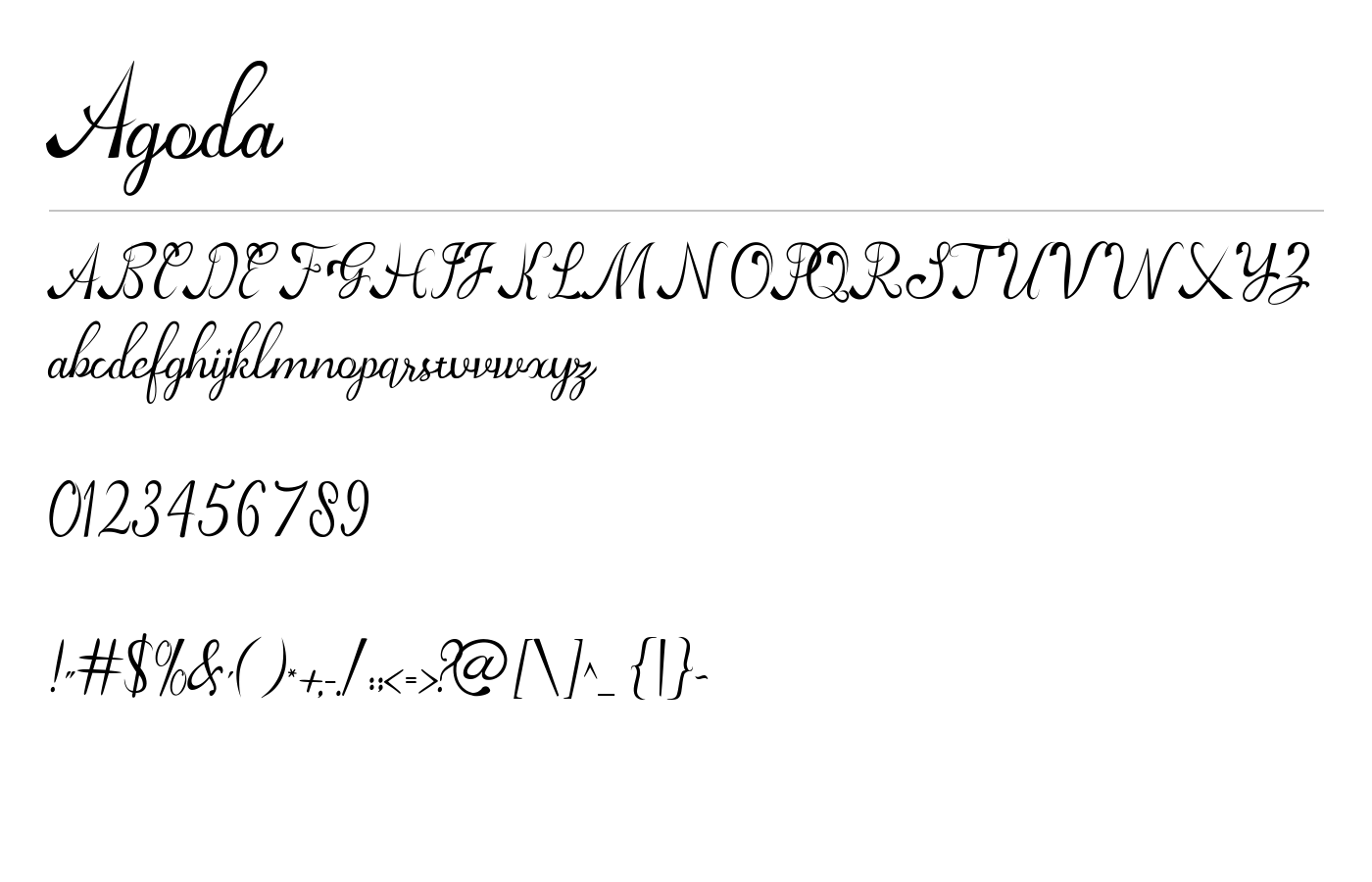
Agoda Font is an elegant and flowing script typeface characterized by its delicate and decorative letterforms that evoke a sense of sophistication and charm. Its thin, graceful strokes combined with unique swashes and curls give it a refined, artistic feel, making it ideal for branding, invitations, and stylish headlines where a touch of luxury and personality is desired.
Agoda Font
About Agoda Font
| Font family | Agoda Font |
| Font subfamily | ExtraLight |